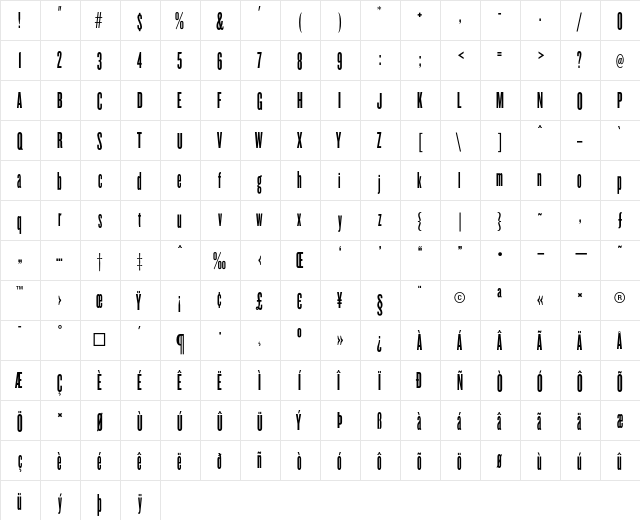
Knockout HTF66-FullFlyweight Font Preview
Knockout HTF66-FullFlyweight
Design Context for Knockout Typeface
Knockout is a composed and adaptable typeface that performs quietly and consistently across a wide range of design contexts.